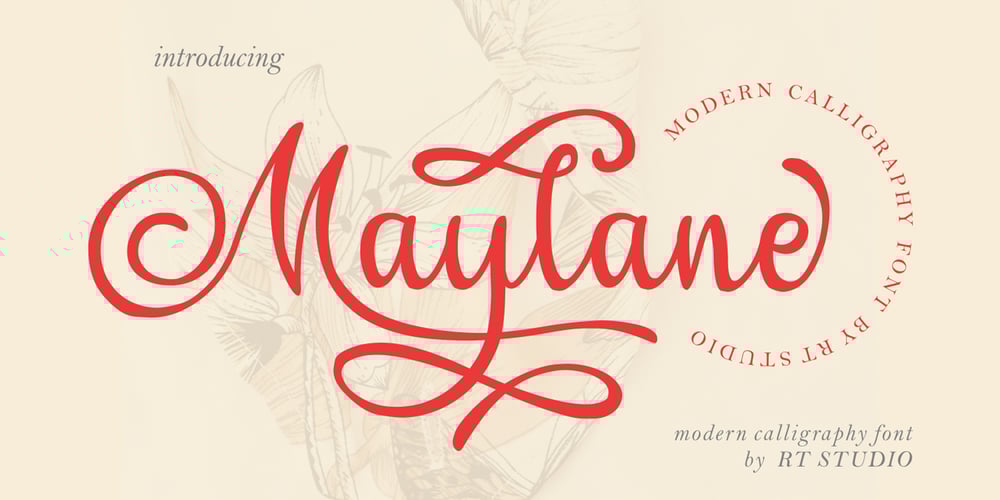
Maylane
Maylane font
Maylane Font Family was designed by Raditya Putra Pratama and published by Raditya Type. Maylane contains 1 styles and family package options. Maylane is a beautiful, loving elegant typeface. It is suitable for wedding invitation, quote, greeting and many more.“Maylane” includes the full set of upper and lower case letters, multilingual symbols, numbers, punctuation, stylistic set, and ligature.This font has a smooth texture, so it will be perfect for all types of printing techniques.You can do embroidery, laser cut, gold foil etc.